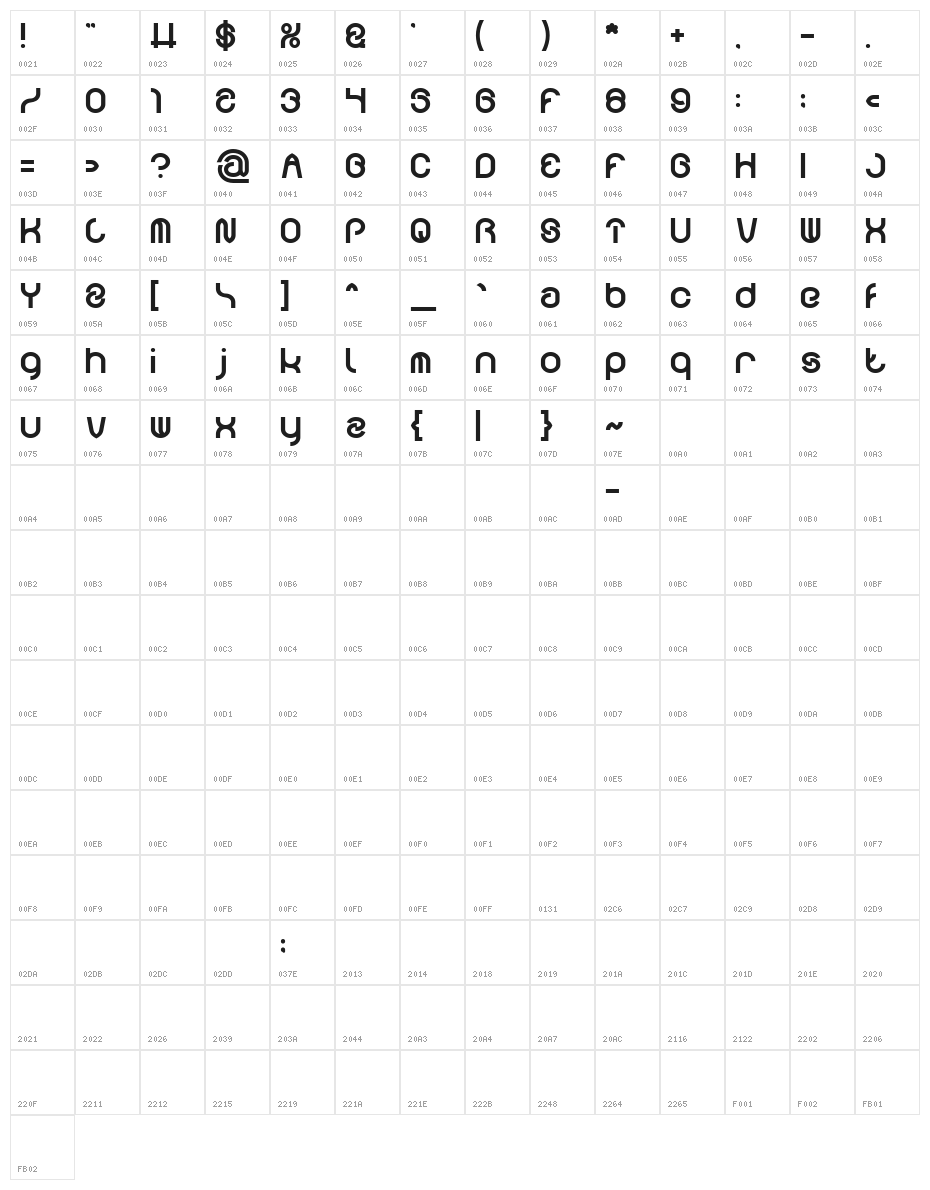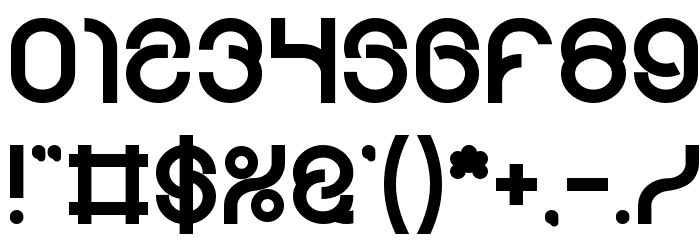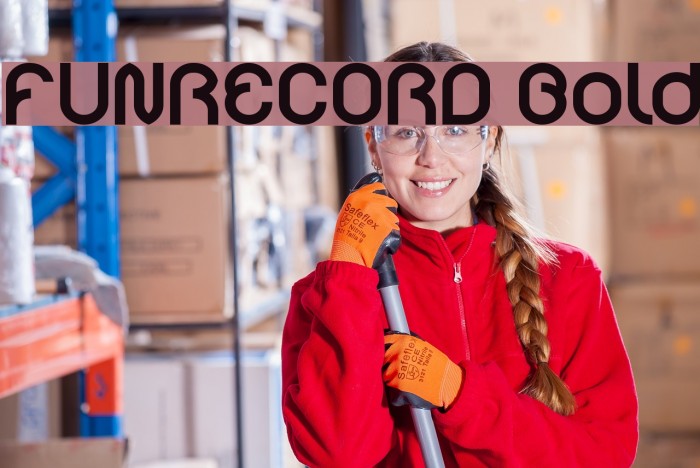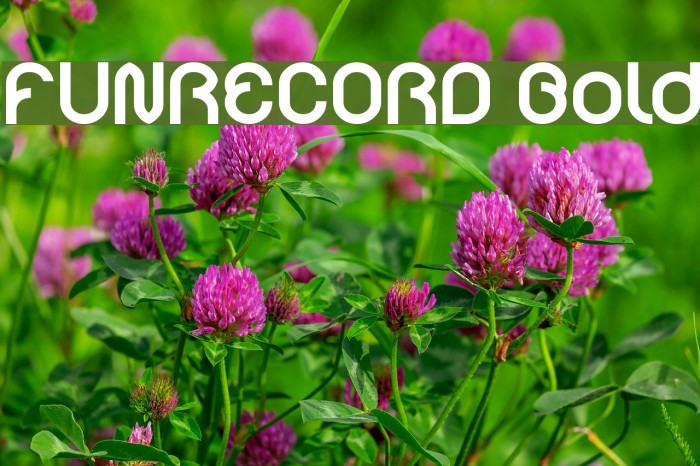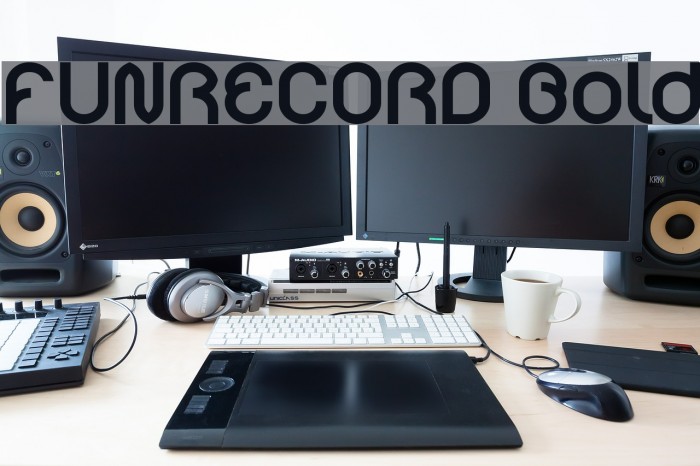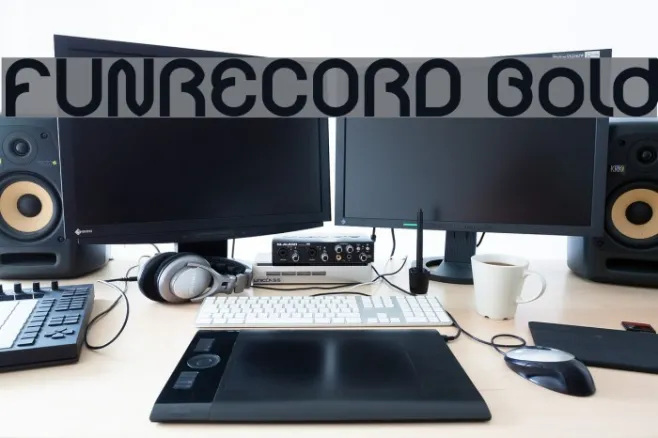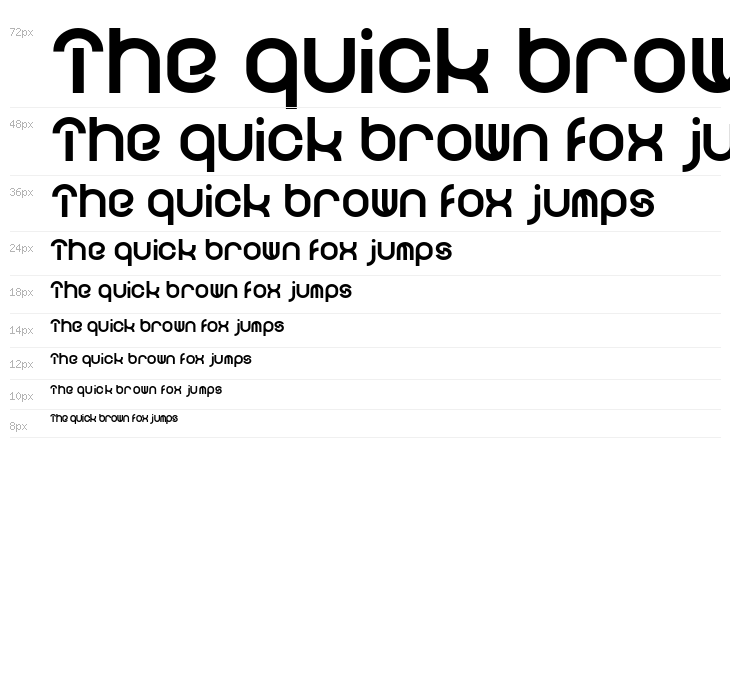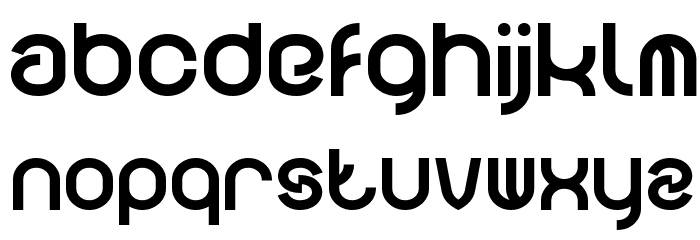
FUNRECORD Bold Font
FUNRECORD Bold Description
This bold typeface features a modern and playful design with rounded edges and a geometric structure. The characters are wide and have a consistent stroke width, giving them a strong and impactful appearance. The uppercase and lowercase letters maintain a uniform height, enhancing readability while adding a unique style. The numerals and special characters are designed to match the overall aesthetic, making the font versatile for various applications. Its boldness and distinct style make it suitable for eye-catching headlines and creative projects.
| Proposed Projects | Ideal for branding, posters, headlines, and any project requiring a bold and modern look. |